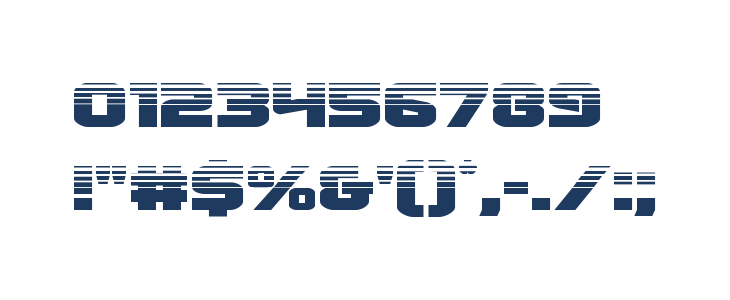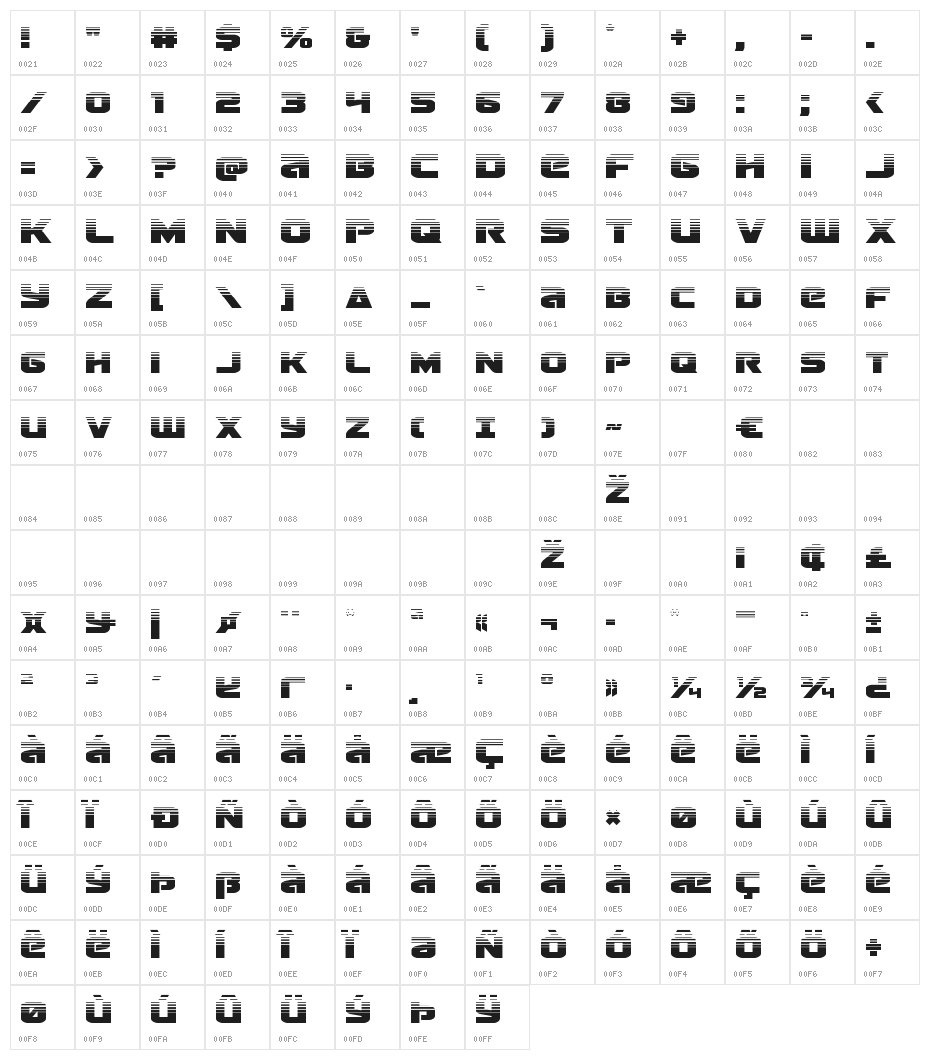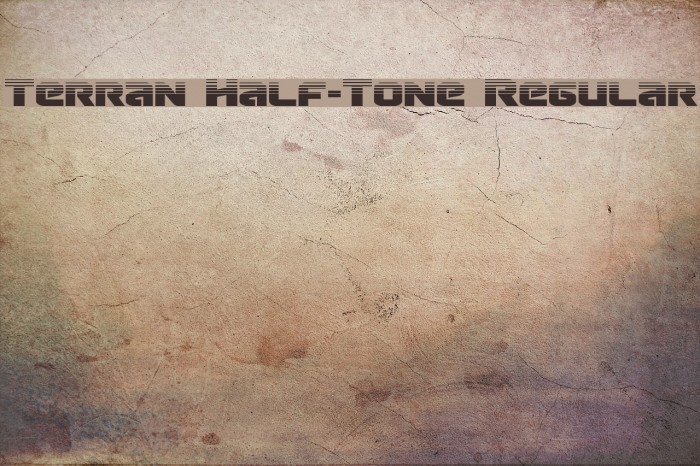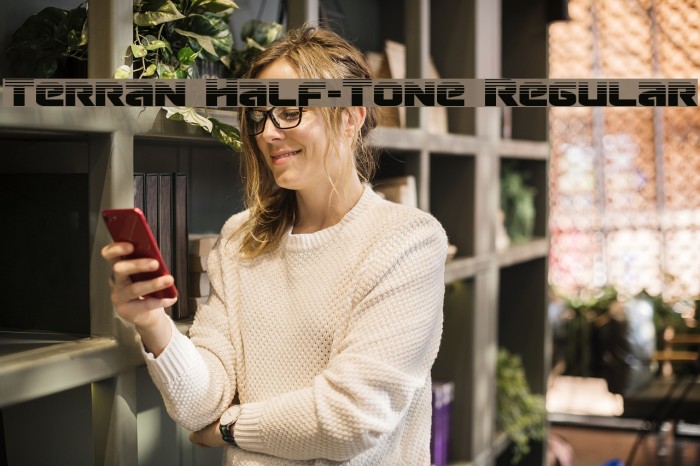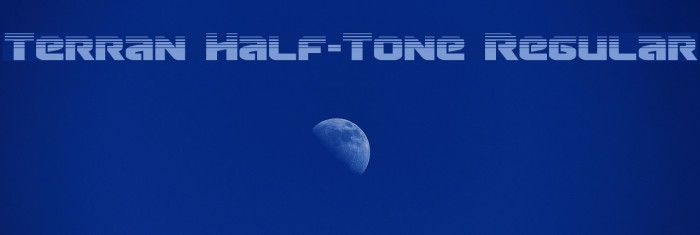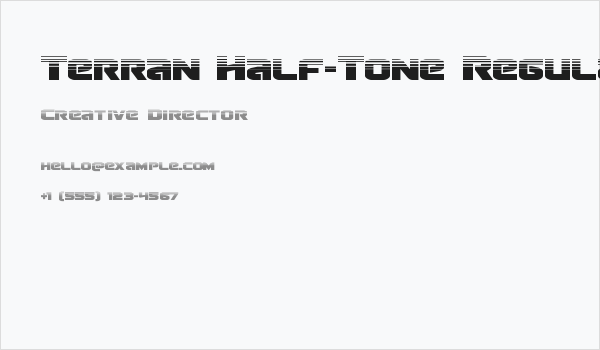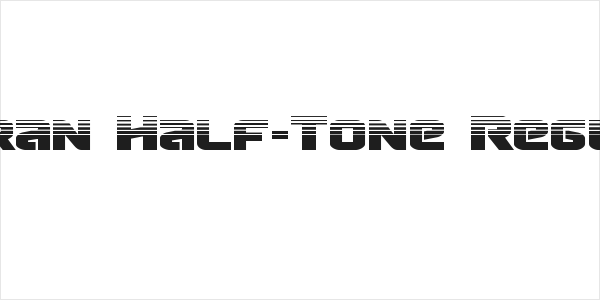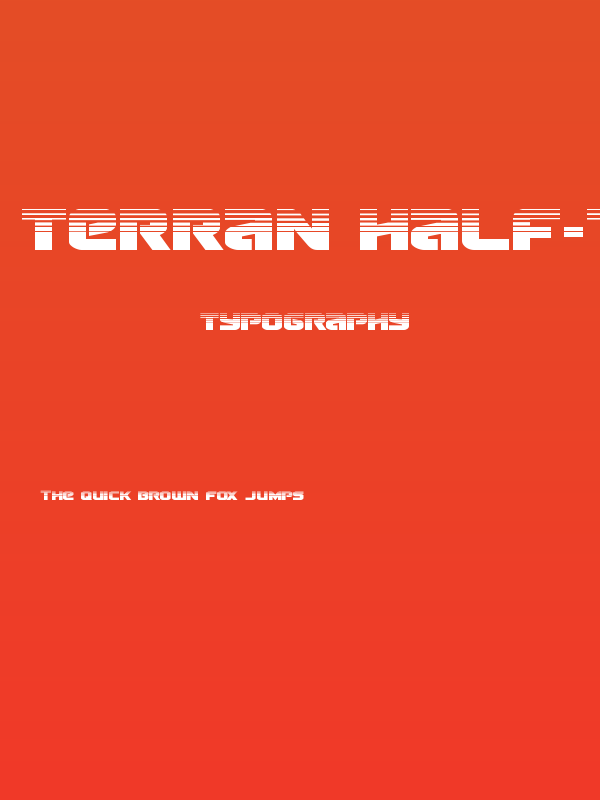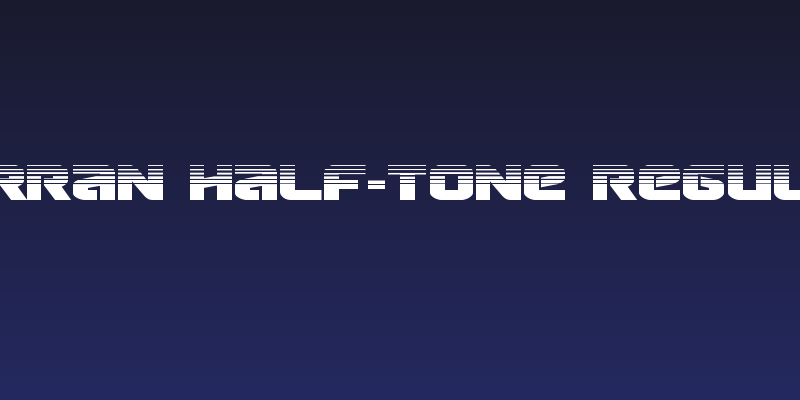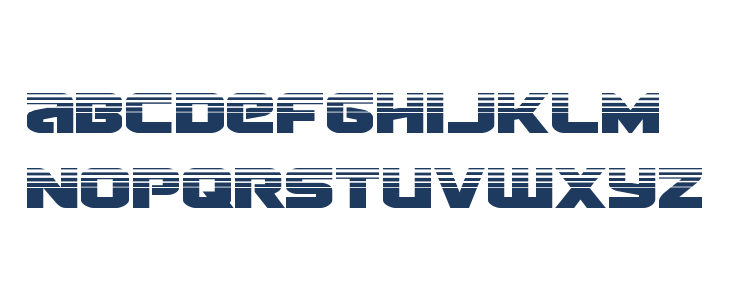
Terran Half-Tone Regular Font
Terran Half-Tone Regular Description
This font features a bold, futuristic design with a distinctive half-tone pattern that gives it a unique, digital appearance. The uppercase letters are structured with horizontal lines that create a sense of movement and energy. The characters are wide and blocky, providing a strong visual impact. The numbers and special characters maintain the same stylistic approach, ensuring consistency across all glyphs. This font is ideal for projects that require a modern, tech-inspired look.
| Proposed Projects | Ideal for technology branding, sci-fi posters, video game titles, and digital media. |